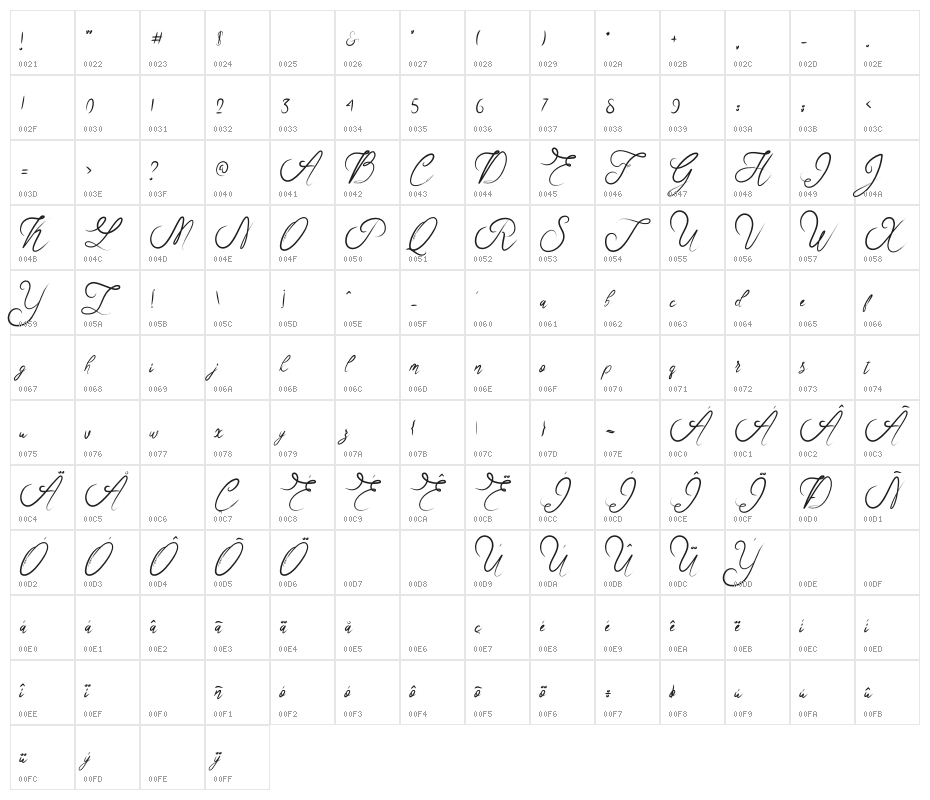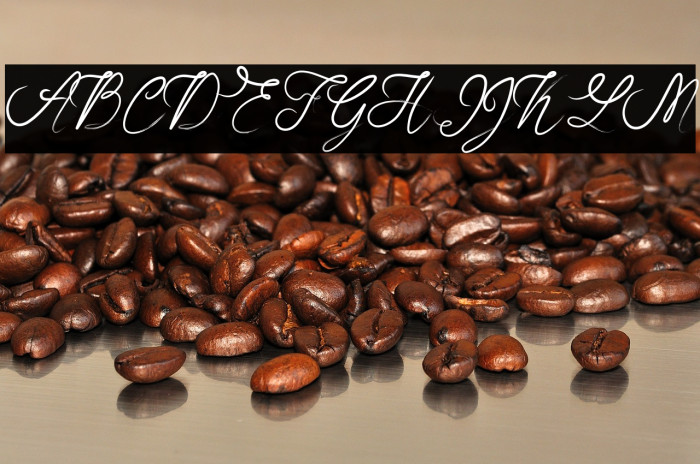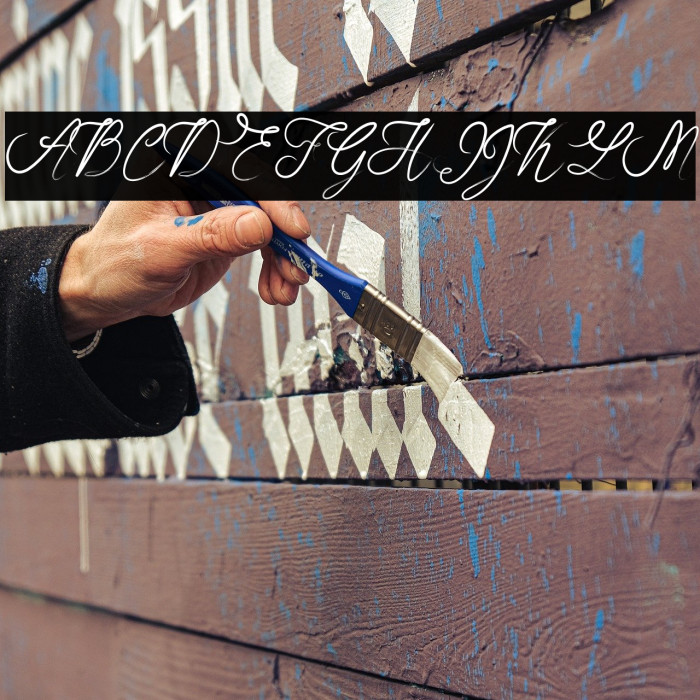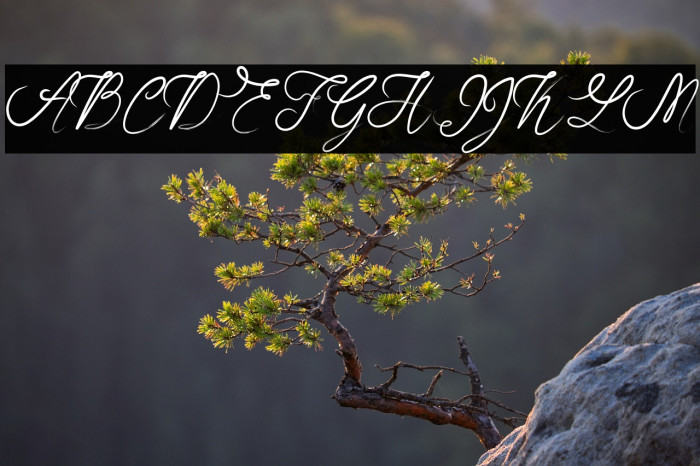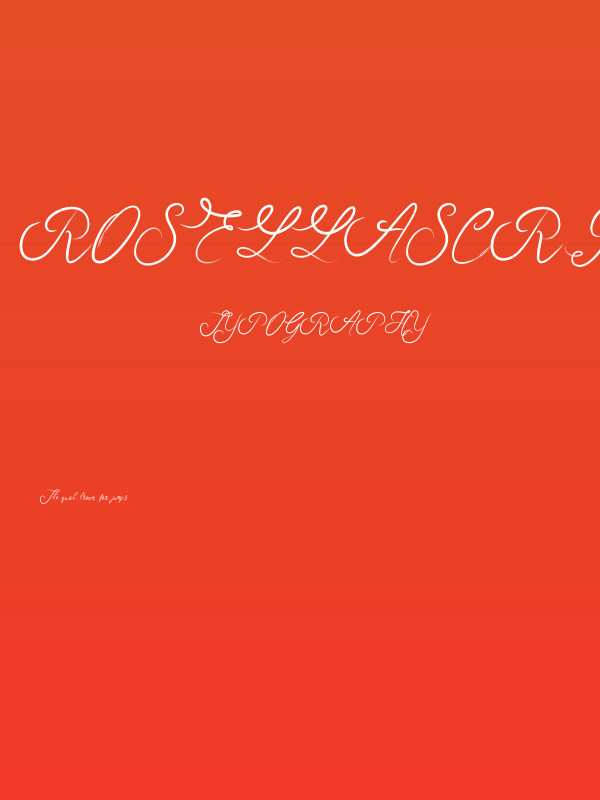
RosellaScript Font
RosellaScript Description
This elegant script font features a flowing, cursive style with intricate loops and swashes, giving it a sophisticated and artistic appearance. The uppercase letters are ornate, with generous curves and flourishes, while the lowercase letters maintain a consistent fluidity, enhancing readability. The numerals and special characters are designed to match the overall aesthetic, providing a cohesive look. This font's delicate strokes and graceful lines make it ideal for projects that require a touch of elegance and refinement.
| Overall Style | Elegant |
| Use Case | Logos, Invitations, Decorative text |
| Proposed Projects | Ideal for wedding invitations, elegant branding, greeting cards, and high-end product packaging. |